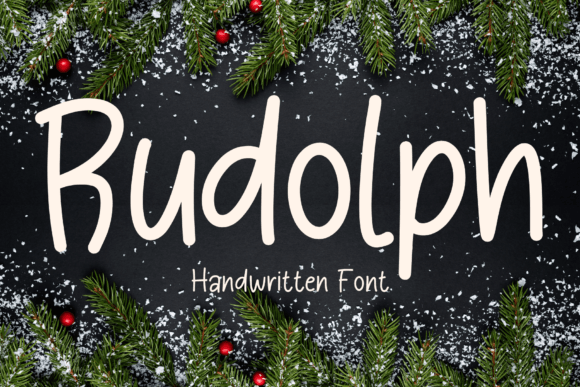
Introducing Rudolph Font, a stunning addition to your font collection that will bring a touch of playfulness and authenticity to all your projects. Created by the talented team at Brown Cupple Fonts, this handwritten font is designed to captivate and inspire.
With Rudolph Font, you can unleash your creativity and elevate the visual appeal of your designs. Whether you're a professional graphic designer or an enthusiastic DIYer, this font is the perfect choice for adding a unique and personal touch to your work.
Imagine the impact Rudolph Font can have on your blog posts, capturing attention with its whimsical and expressive nature. It's ideal for logos and branding, infusing your business with a distinct and memorable identity. Your ads will stand out from the crowd, leaving a lasting impression on potential customers.
Invitations and greeting cards will come to life with Rudolph Font, exuding warmth and charm. Your recipients will be delighted by the personal and heartfelt touch it adds to these special moments. And when it comes to planners and photo albums, Rudolph Font will effortlessly enhance the visual storytelling, making every page a work of art.
Decorations will never be the same once you incorporate Rudolph Font into your projects. From party banners to home decor, this font will infuse joy and creativity into every detail. Its versatility knows no bounds, allowing you to explore endless possibilities.
What sets Rudolph Font apart is its ability to evoke emotions and create connections. Its handwritten charm adds a personal and relatable feel to your designs, making them more engaging and memorable. Rudolph Font truly has the power to leave a lasting impact on your audience.
Join the countless designers and creators who have embraced Rudolph Font and witnessed the magic it brings to their work. Add a touch of whimsy, authenticity, and emotion to your designs with this remarkable font. Don't miss out on the opportunity to elevate your creations and make them truly unforgettable.